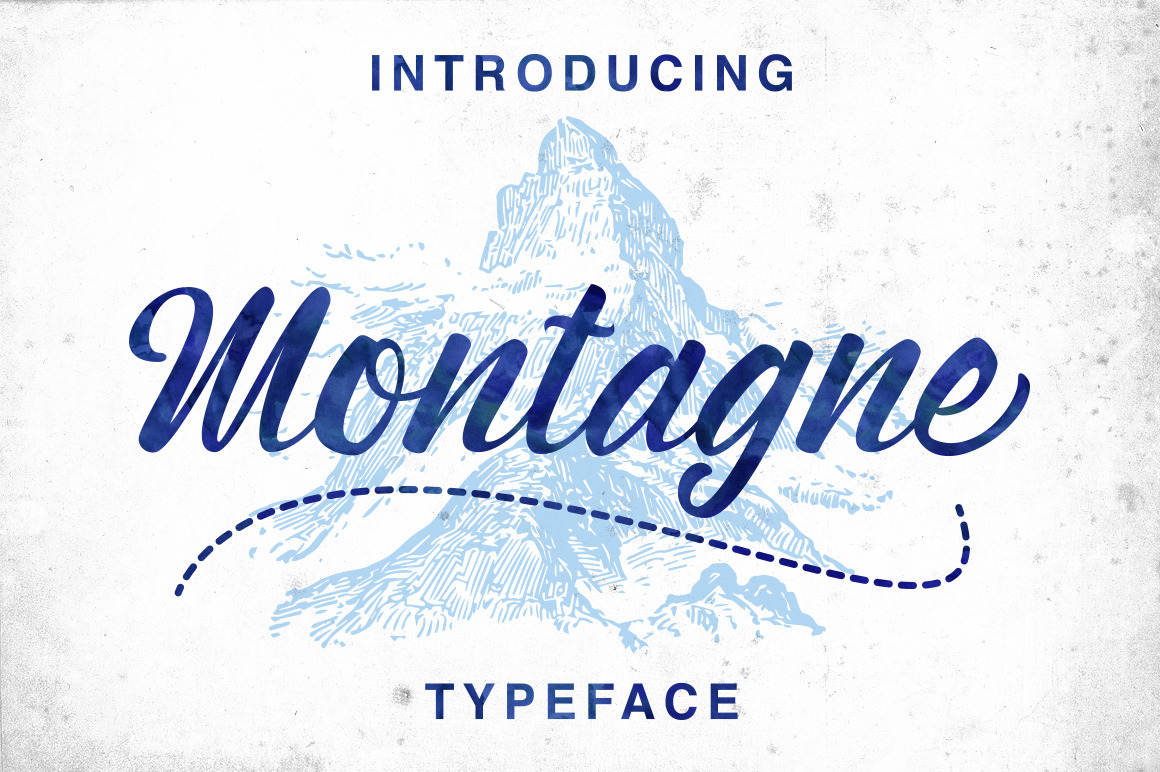
Montagne Typeface
Montagne Typeface is perfect for outdoor adventure branding, mountain resort signage, hiking equipment labels, alpine lodge materials, wilderness expedition companies, outdoor gear packaging, national park communications, ski resort identities, mountaineering organizations, nature photography portfolios, adventure travel agencies, and rugged lifestyle brands.
What makes Montagne Typeface exciting is its majestic strength that captures the grandeur and enduring power of mountain landscapes through bold, commanding letterforms. This impressive typeface embodies the spirit of alpine adventure and natural monumentality, combining rugged character with refined craftsmanship that speaks to audiences seeking authentic outdoor experiences and connection with nature's most dramatic environments. The font's powerful presence and weathered durability convey reliability and adventure while maintaining the clarity essential for outdoor applications and extreme conditions. Its mountainous personality makes it perfect for brands that want to communicate strength, endurance, and the transformative power of wilderness experiences.
The Montagne Typeface family includes regular, medium, and bold weights, featuring alpine alternates, rugged ligatures, and mountain-inspired design elements. The character set incorporates outdoor symbols, adventure numerals, and wilderness punctuation marks that enhance the font's alpine character and provide designers with comprehensive outdoor adventure design solutions.
Whether you're developing outdoor brand identities, creating adventure marketing materials, or designing wilderness communications, Montagne Typeface Free Download delivers the rugged authority your mountain-focused projects demand. This premium typeface excels in applications where strength and authenticity are crucial for brand positioning and outdoor enthusiast engagement in adventure tourism and equipment markets. The font's alpine qualities work magnificently across outdoor signage, equipment packaging, and digital applications, making it an invaluable asset for designers serving outdoor recreation and adventure industries. Mountain resorts and outdoor companies choose this font for its ability to communicate adventure while maintaining professional standards and market credibility. The comprehensive character support includes international symbols and outdoor-specific glyphs, expanding its versatility for global adventure applications and multilingual outdoor communications. Professional designers appreciate its perfect balance of rugged authenticity and commercial functionality, ensuring projects remain both emotionally compelling and practically effective for outdoor audiences. When you implement this exceptional typeface in your adventure communications, you're selecting a typography solution that celebrates mountain grandeur and outdoor heritage, ensuring your brand connects with adventure seekers while maintaining the rugged credibility essential for success in competitive outdoor markets and adventure tourism industries that inspire people to explore nature's most challenging and rewarding environments.